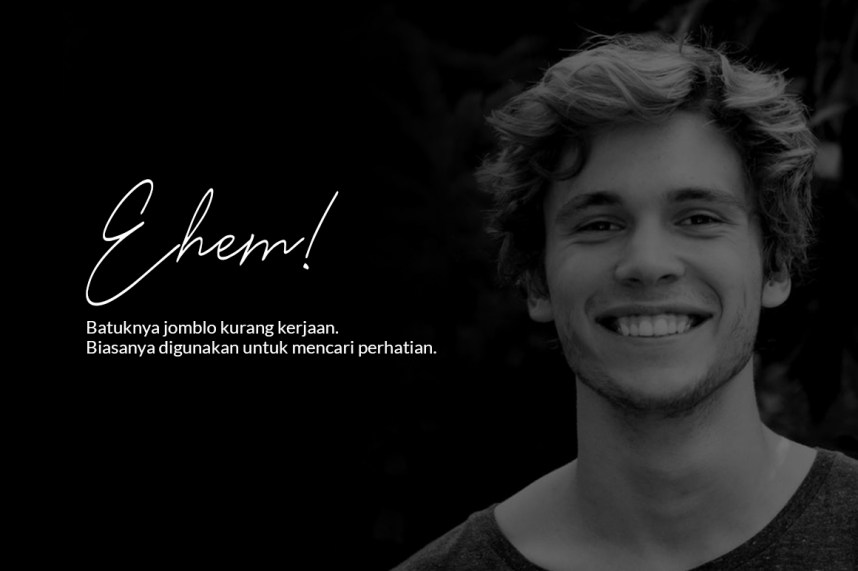
Reman Script – 100% Free Font
Reman is a normal and italic font script a work that is purely a result of handwriting, has a natural characteristic. Reman was designed and shares by Syaf rizal. With a Reman offers beautiful typography harmony for a diversity of design projects, including logos & branding, wedding design, social media posts, advertising & other product design.